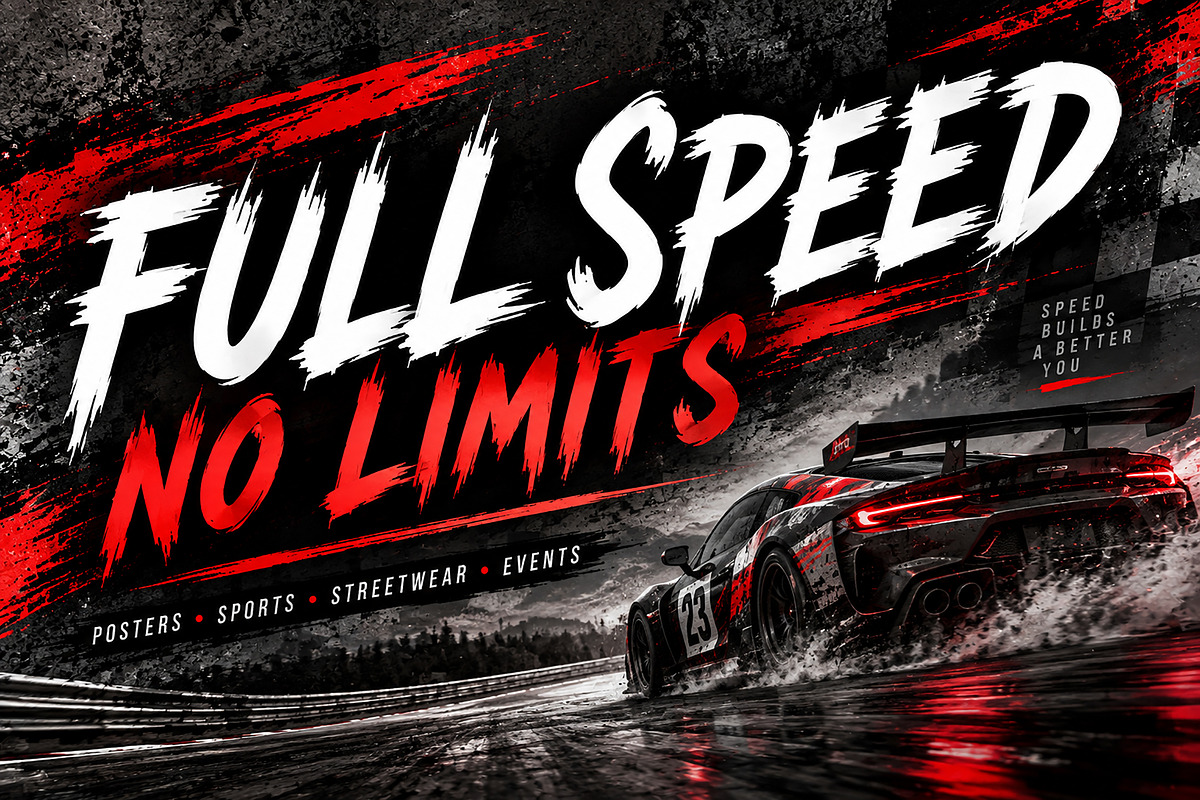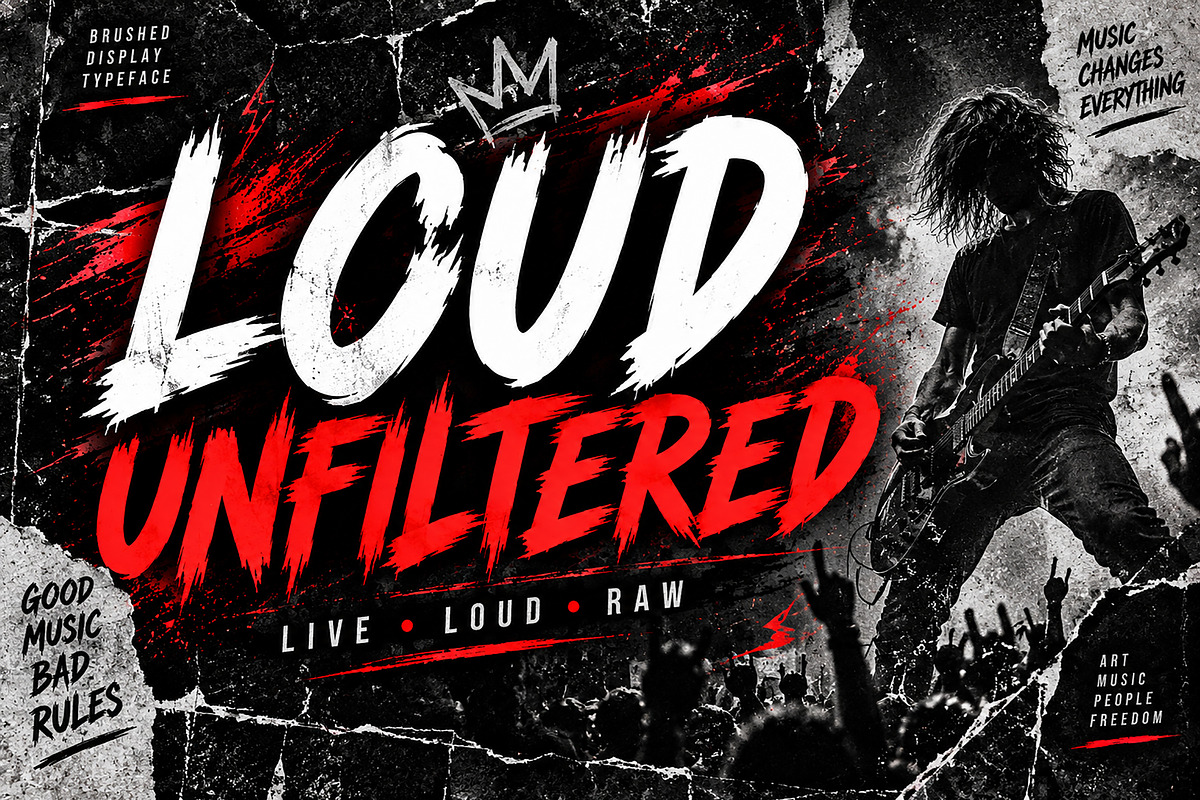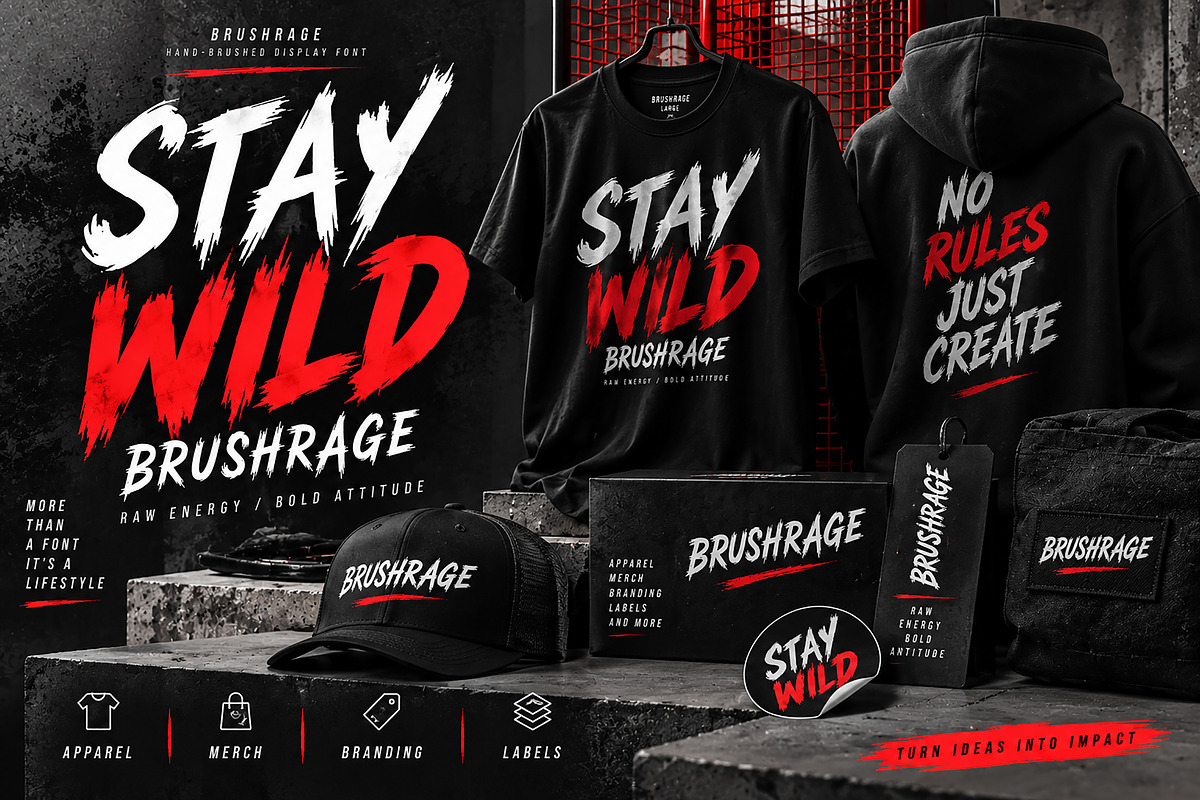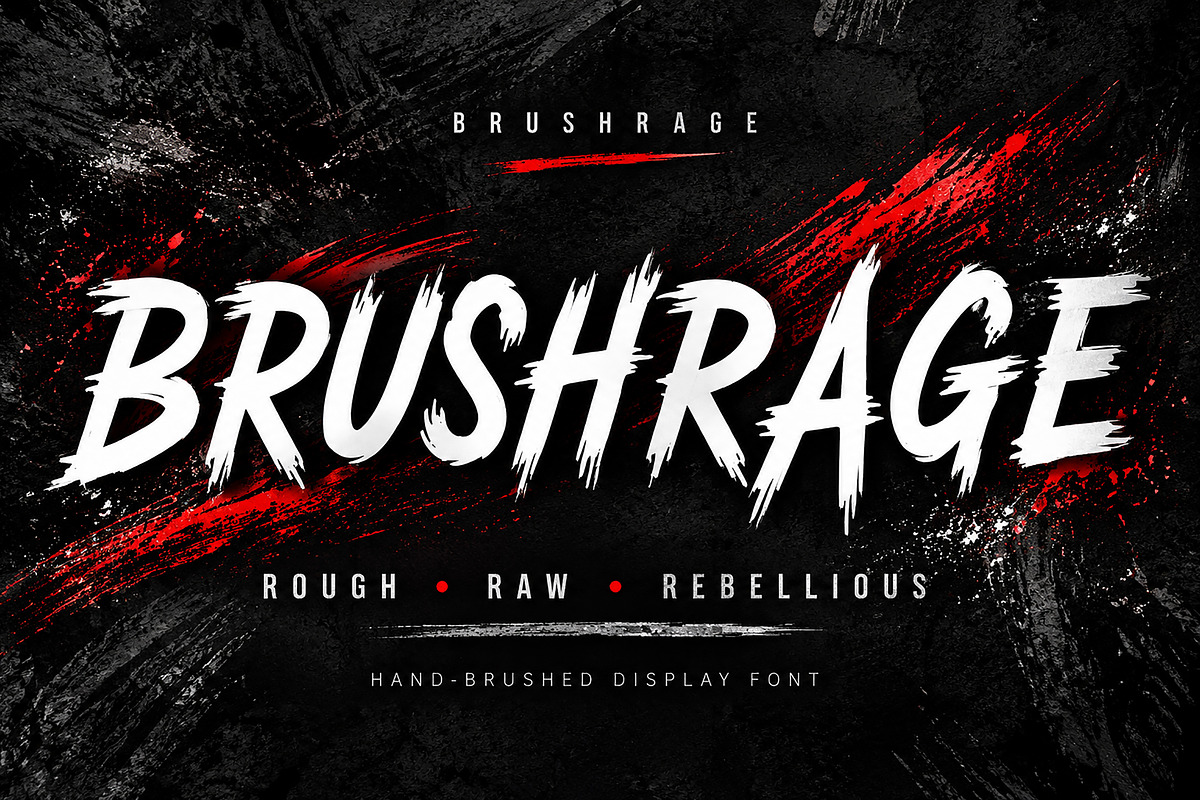
BRUSHRAGE
BRUSHRAGE – Rough Brush Display Font
Bring raw energy, bold attitude, and rebellious character to your designs with BRUSHRAGE, a powerful hand-brushed display font created for eye-catching typography.
Featuring aggressive brush strokes, rough edges, distressed details, and an energetic handcrafted feel, BRUSHRAGE is perfect for designs that need a strong, expressive, and unconventional look.
From bold headlines to streetwear graphics, posters, sports artwork, music designs, and branding, BRUSHRAGE is designed to make your typography stand out.
Streetwear & Apparel Designs
T-Shirt & Hoodie Graphics
Sports & Racing Posters
Music & Rock Posters
Album & Cover Artwork
Event Posters
Logo & Branding Concepts
Merchandise Designs
Stickers & Labels
Advertising & Promotional Designs
Headlines & Display Typography
Rough & aggressive brush style
Hand-crafted distressed appearance
Bold display character
Energetic and rebellious aesthetic
Great for large headlines and impactful typography
Designed for posters, apparel, branding, and more
BRUSHRAGE is made for designers who want typography with attitude, movement, and impact.
Make it rough. Make it loud. Make it BRUSHRAGE.